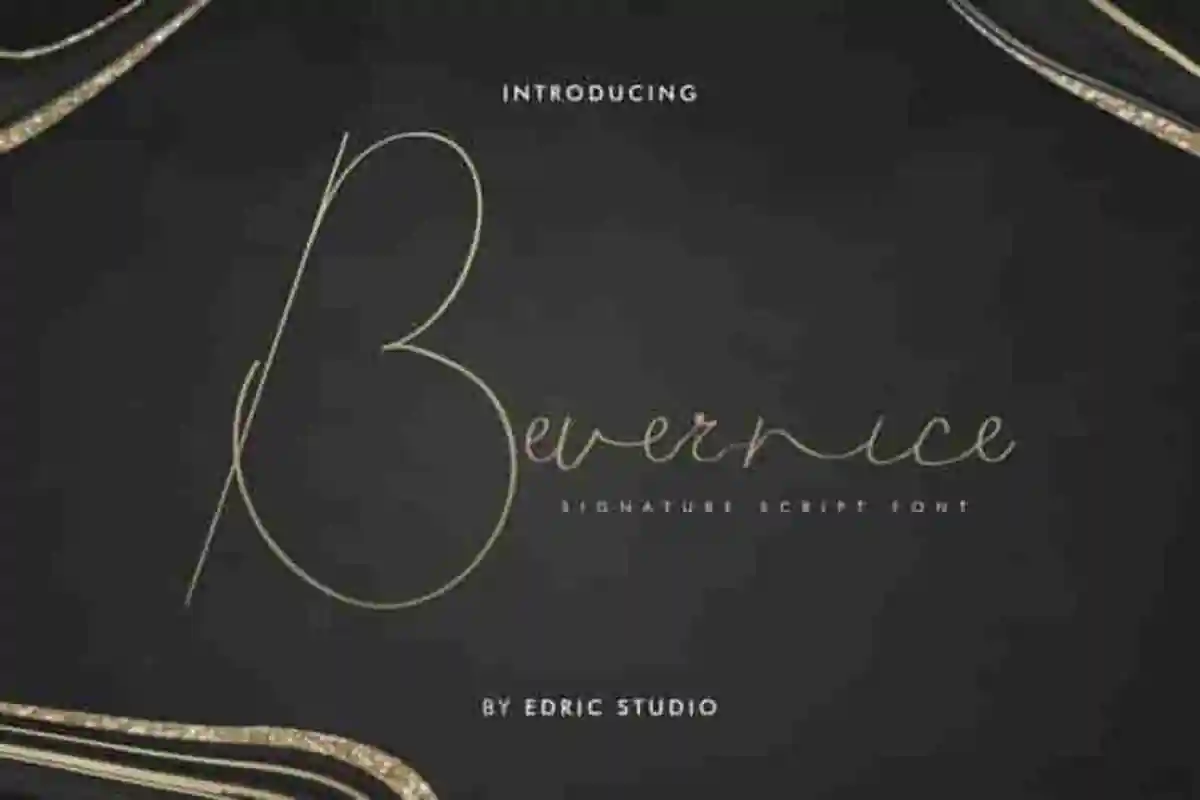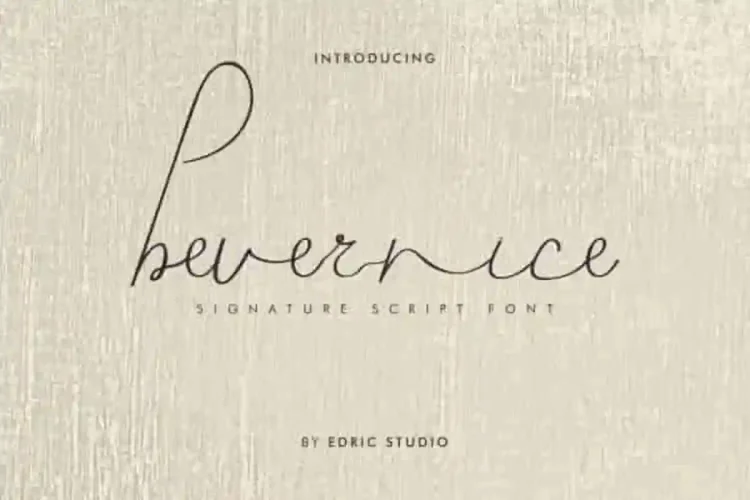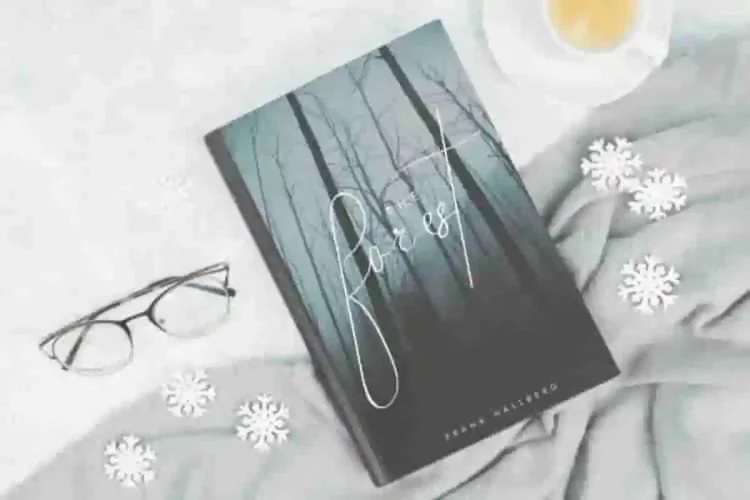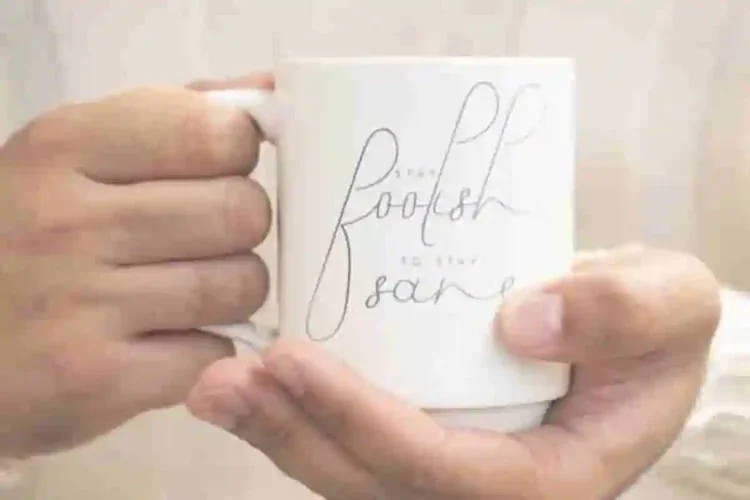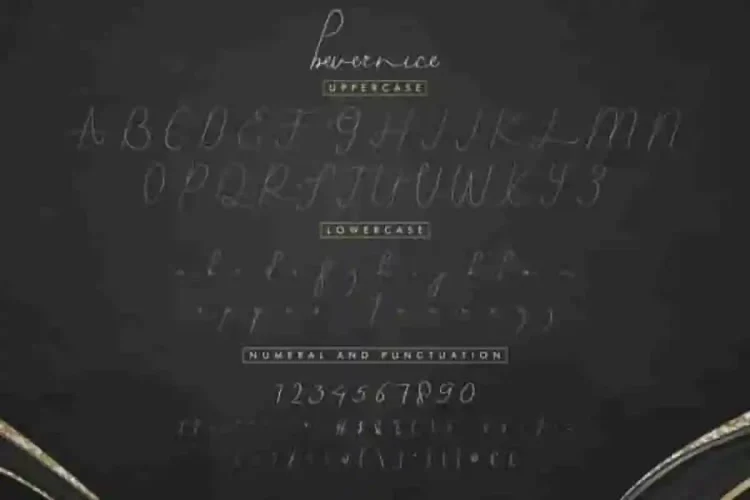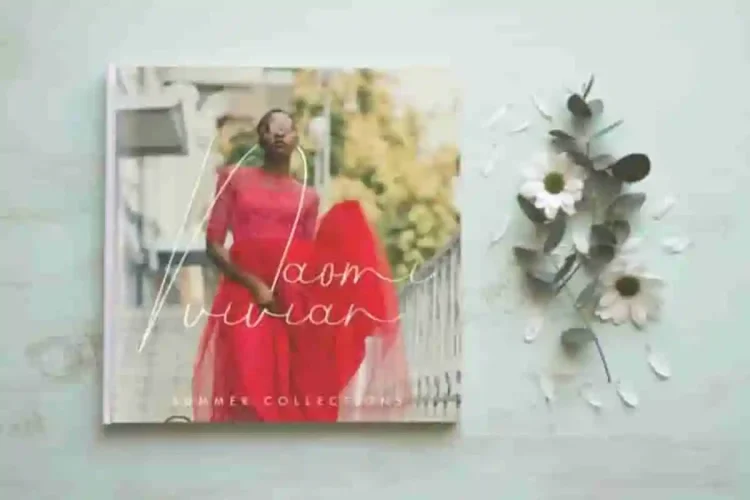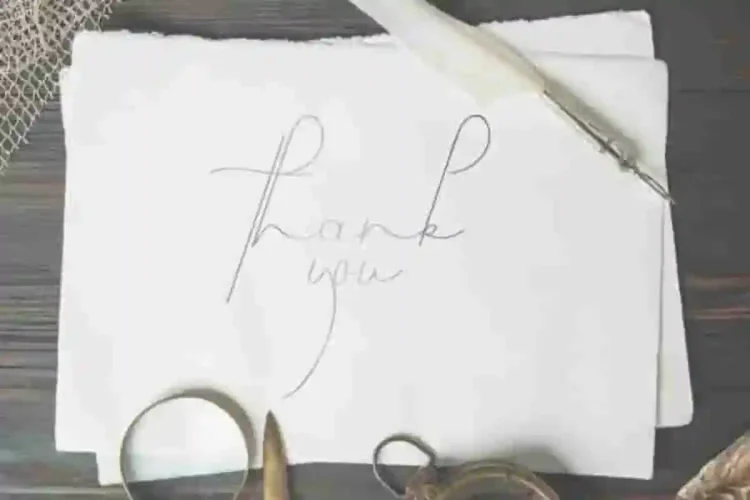
Bevernice Signature Script Font
Bevernice Signature Script Font is a simple light signature font script with elegant handwriting style, handcrafted from our Studio here in Indonesia. Designed with an elegant handwritten touch, Bevernice offers a natural pen-signature look that is perfect for creating timeless branding. It has a stunning characters set, perfectly managed with well spaced and kerning. Its style blends simplicity, elegance, and sophistication with a clean, classic appeal.
Bevernice Signature Font will be great for any projects (with extended license) including : branding, logo, stationery, business card, signage, flyer, brochure etc. Almost all industries will be match for this typeface: wedding, events, real estate, architect, law firm, florist, gardening, makeup artist, travel, hotel, musician etc